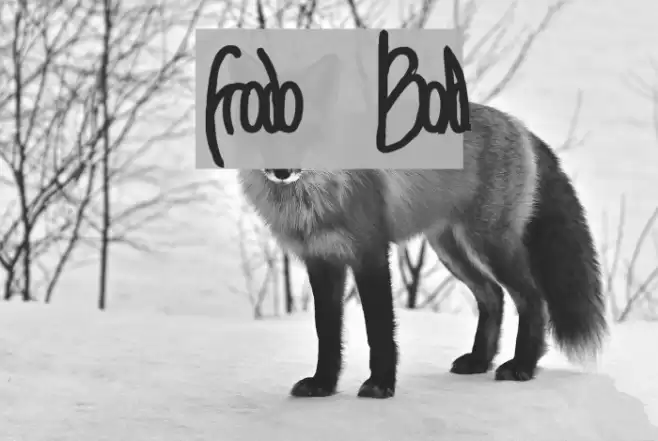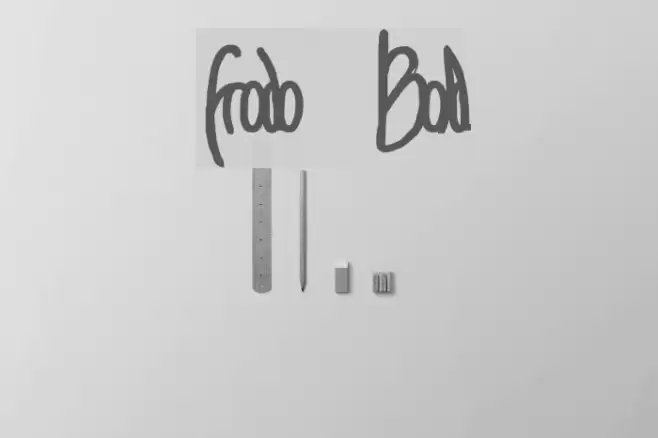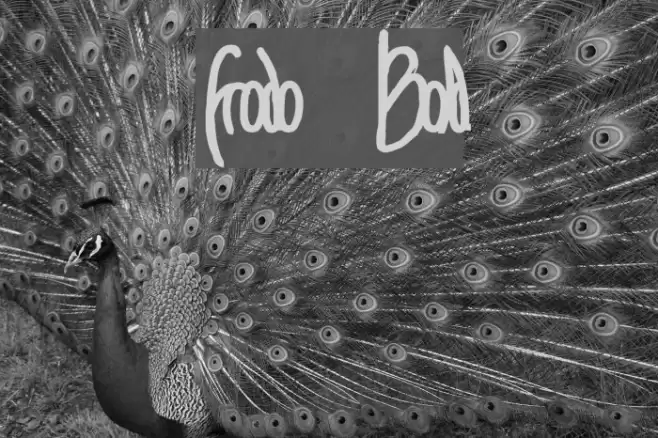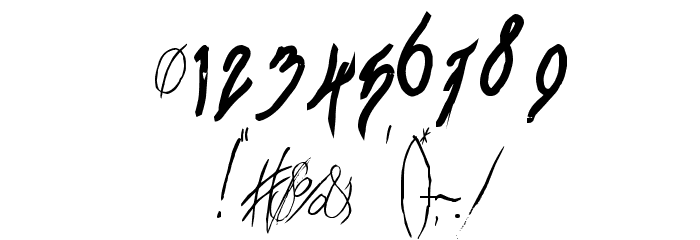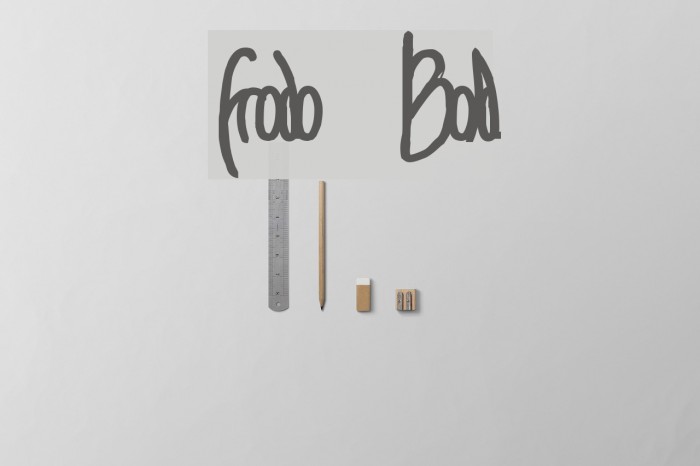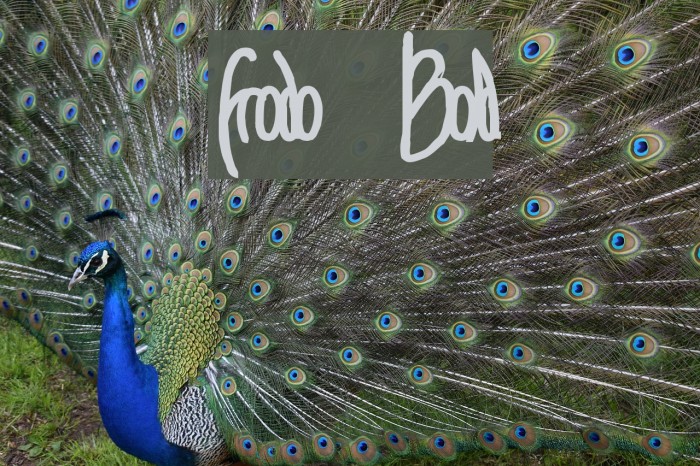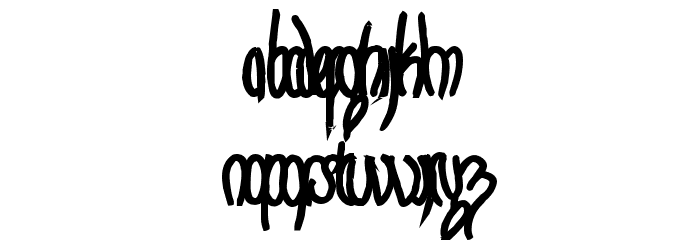
Frodo Bold Font
Frodo Bold Description
This font features a highly decorative and artistic style, characterized by its flowing, cursive-like strokes and intricate detailing. The letters are interconnected, creating a sense of continuity and fluidity. The uppercase letters exhibit a bold presence with exaggerated curves and loops, while the lowercase letters maintain a consistent style with slightly more subtle embellishments. The numbers and special characters follow the same ornate design, ensuring a cohesive look throughout. This font's unique style makes it ideal for creative and expressive projects.
An artistic and decorative font with flowing, interconnected strokes from Uncategorized fonts.
- Proposed Projects: Ideal for invitations, artistic posters, branding for creative industries, and decorative headings.
- Character Spacing: Tight
- Use Case: Headlines, Logos, Artistic projects